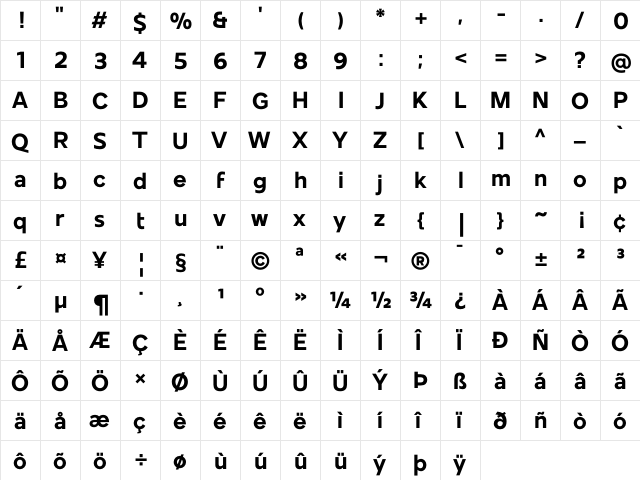
Mollen Personal Use Bold
Bold ·  Eko Bimantara ·
DesignerEko Bimantara
Design Context for Mollen Personal Use Typeface
Mollen Personal Use is a composed and adaptable typeface that performs quietly and consistently across a wide range of design contexts. The heavy weight commands attention and anchors typographic hierarchies.